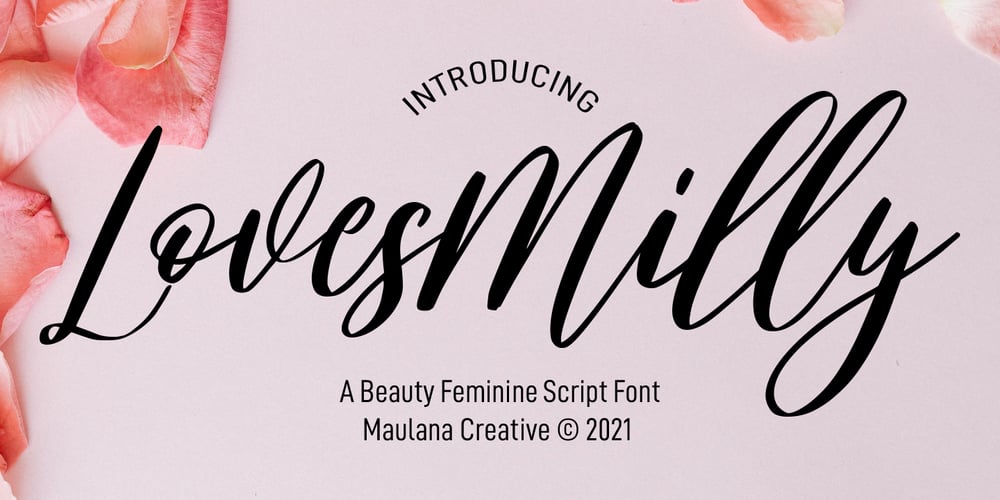
Lovesmilly Font Family was designed by Gilang Maulana and published by Maulana Creative. Lovesmilly contains 1 styles and family package options. Lovesmilly is a feminine script font. With thin contrast stroke, slanted and lovely character with a bit of ligatures. To give you an extra creative work. Lovesmilly font support multilingual more than 100+ language. This font is good for logo design, Social media, Movie Titles, Books Titles, a short text even a long text letter and good for your secondary text font with sans or serif. Make a stunning work with Lovesmilly font. Cheers, MaulanaCreative